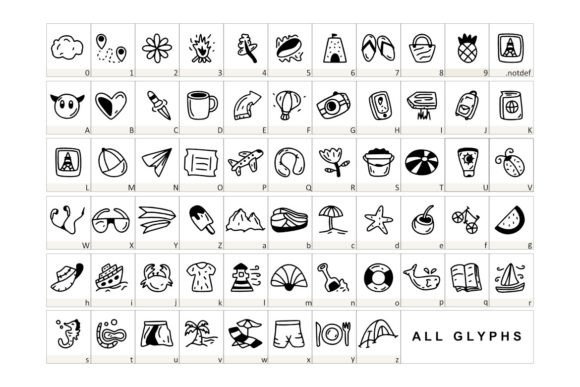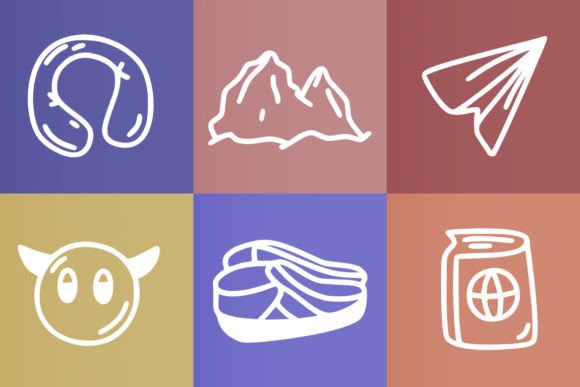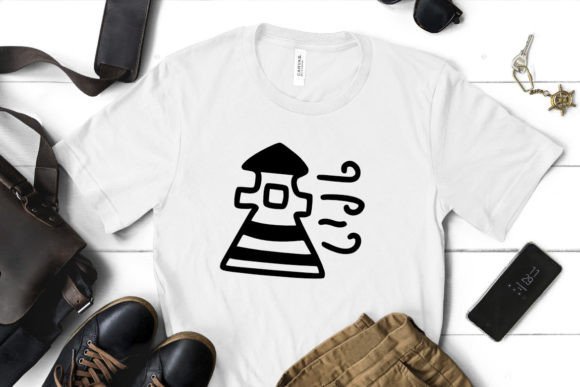
Introducing Excitement Font: The Ultimate Dingbats Font for Creative Projects
Are you tired of using the same old fonts for your creative projects? Look no further! Excitement Font is a cute and useful dingbats font that’s perfect for a wide variety of projects. Whether you’re a designer, crafter, or DIY enthusiast, this font is sure to add a touch of excitement to your work.
What is Excitement Font?
Excitement Font is a unique dingbats font that’s designed to add a playful and fun touch to your projects. Dingbats fonts are a type of font that features symbols, icons, and other graphical elements instead of traditional letters and numbers. Excitement Font is packed with a wide range of cute and useful symbols that can be used to create eye-catching designs.
What Can I Use Excitement Font For?
Excitement Font is incredibly versatile and can be used for a wide variety of projects. Here are some ideas to get you started:
- Stickers: Use Excitement Font to create fun and colorful stickers for parties, events, or everyday use.
- Posters: Add a playful touch to your posters with Excitement Font’s cute symbols and icons.
- T-shirts: Create eye-catching t-shirt designs with Excitement Font’s fun and quirky symbols.
- Cards: Use Excitement Font to create unique and personalized greeting cards for special occasions.
- Apparel Graphics: Add a touch of excitement to your apparel graphics with Excitement Font’s cute and colorful symbols.
Why You’ll Love Excitement Font
So, what makes Excitement Font so special? Here are just a few reasons why you’ll love this font:
- Cute and Playful: Excitement Font features a wide range of cute and playful symbols that are sure to add a touch of fun to your projects.
- Easily Readable: Despite its playful nature, Excitement Font is incredibly easy to read, making it perfect for use in a variety of projects.
- Highly Versatile: Excitement Font can be used for a wide range of projects, from stickers and posters to t-shirts and cards.
- Easy to Use: Excitement Font is incredibly easy to use, even for those with limited design experience.
Tips for Using Excitement Font
Here are a few tips for getting the most out of Excitement Font:
- Experiment with Different Colors: Excitement Font looks great in a variety of colors, so don’t be afraid to experiment and find the perfect color scheme for your project.
- Mix and Match Symbols: Excitement Font features a wide range of symbols, so try mixing and matching them to create unique and interesting designs.
- Use it with Other Fonts: Excitement Font pairs well with a variety of other fonts, so try using it in combination with other fonts to create a unique look.